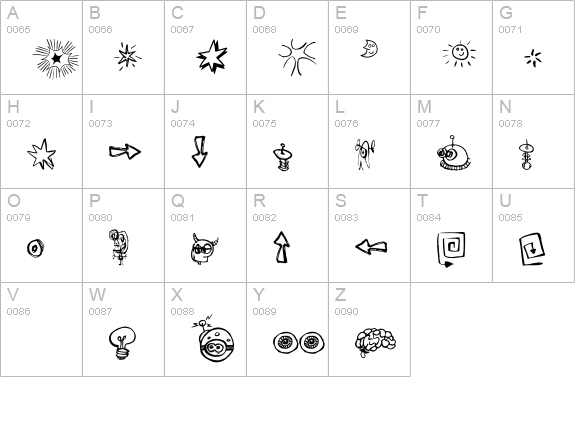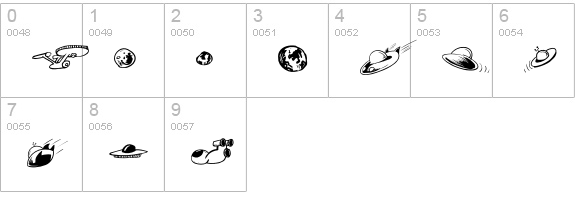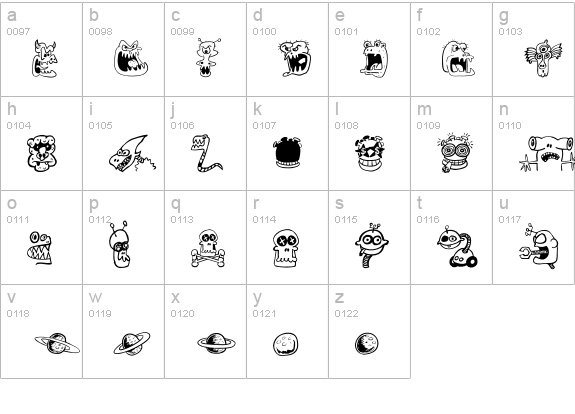
LunarTwits Font Details
Introducing LunarTwits font, a whimsical and modern typeface perfect for adding a touch of charm to your projects. With its playful curves and elegant lines, LunarTwits is sure to make your text stand out in the crowd. This font is free for personal and commercial use, making it a versatile choice for all your design needs. You can download LunarTwits for free at FontsMarket.com and start creating eye-catching designs today. Let your creativity soar with LunarTwits font!